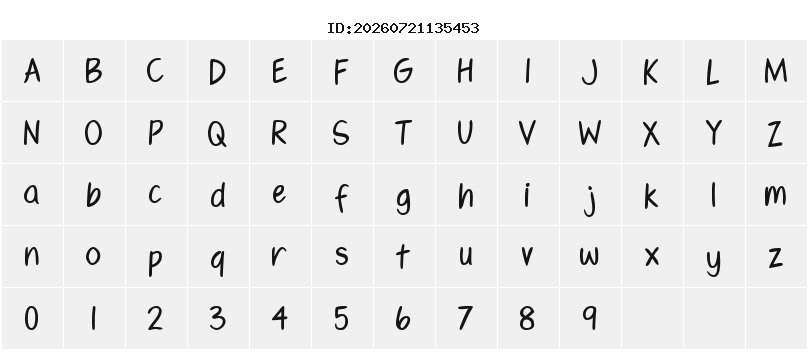
Fennario Preview
• Font Name: Fennario
About Fennario.ttf
Fennario.ttf is a modern, elegant sans-serif font designed for ultimate readability and visual harmony. Perfect for branding, headlines, web design, and print materials.